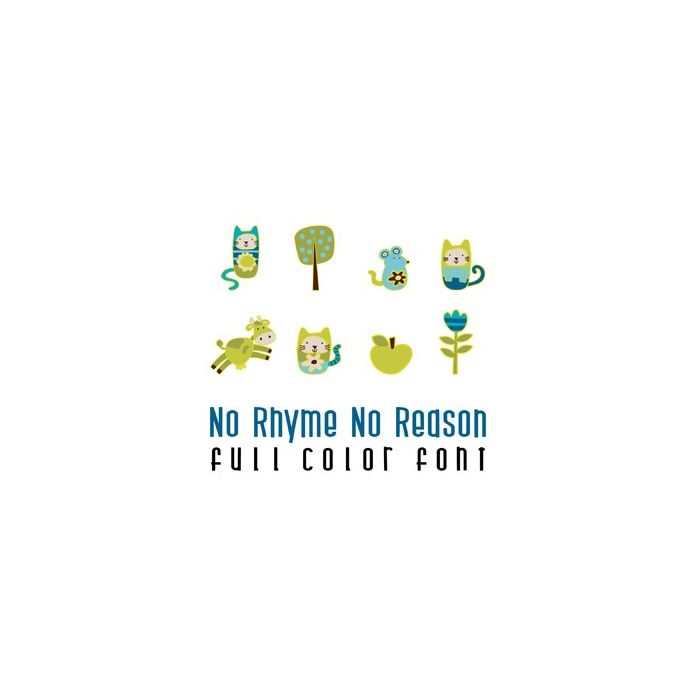
This adorable full color doodlebat font adorable nursery rhyme imager. Perfect for cards, crafts, gifts, decor, scrap book pages, planner stickers and more!